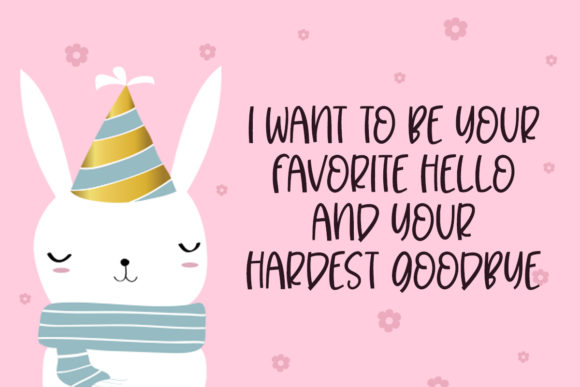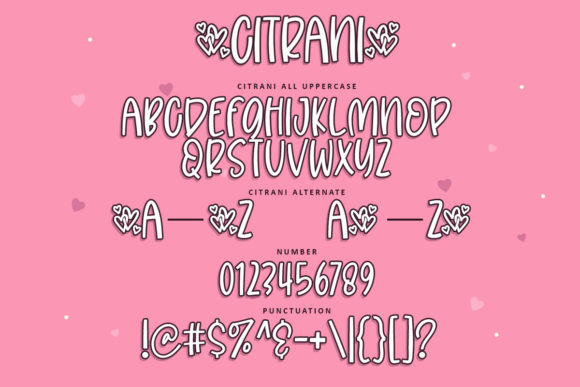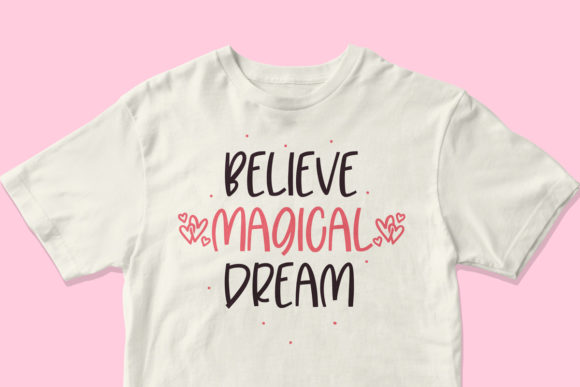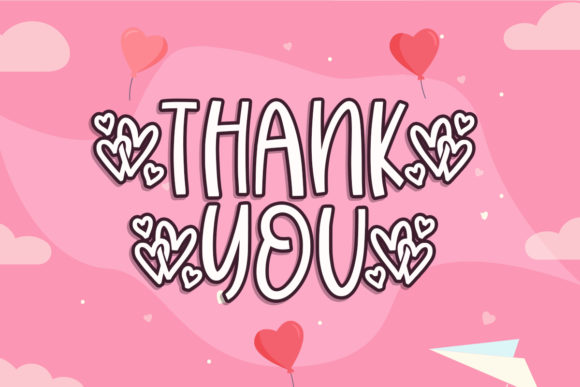
The Perfect Brushstroke: Discovering Citrani Font
Do you remember that magical moment when you stumbled upon the perfect brushstroke in a font? The one that makes your design feel like a warm hug on a cold day? For designers like you, this moment is a game-changer. It’s the spark that ignites creativity and sets your imagination ablaze. For me, that moment came when I discovered the enchanting Citrani Font.
Citrani Font is a sweet, soft hand-lettered handwritten font that’s designed to capture the essence of authenticity. Whether you’re creating gorgeous wedding invitations, beautiful stationery art, or eye-catching social media posts, Citrani Font is the perfect companion for your creative journey. Its unique charm and character make it a valuable asset for designers who crave a personal touch in their work.
Citrani Font Key Features
- Font Style: Citrani is a modern sans-serif font with a unique, elegant design.
- Character Set: Supports a wide range of languages, including Latin, Cyrillic, and Greek alphabets, making it suitable for international use.
- Unique Characteristics: Features a distinctive, rounded design with subtle flair at the terminals, giving it a unique and sophisticated look.
Citrani Font Review
Citrani Font is a beautiful, elegant script font that I’ve been experimenting with for a while now. Here are my honest thoughts on this font.
- Highly customizable: Citrani Font offers a range of OpenType features that allow for fine-grained control over the font’s behavior.
- Unique aesthetic: This font has a distinct, vintage feel that works well for creative and artistic projects.
- Wide language support: Citrani Font supports a wide range of languages, making it a great option for multilingual projects.
- Limited font weights: Citrani Font comes with a limited range of font weights, which may not be suitable for projects that require a lot of variation.
- Not ideal for body text: While Citrani Font is perfect for headlines and titles, it may not be the best choice for body text due to its relatively large x-height.
Citrani Font is a great choice for projects that require a touch of elegance and sophistication. While it may have some limitations, its unique aesthetic and high level of customizability make it a valuable addition to any designer’s toolkit.
Citrani Font is ideal for creative projects that require a modern, elegant look. Use it for:
– Fashion designs and brochures
– Digital signage and display graphics
To get the most out of Citrani Font, experiment with different font sizes, colors, and styles. Pair it with other fonts to create a unique and visually appealing design.